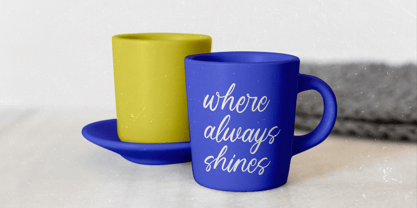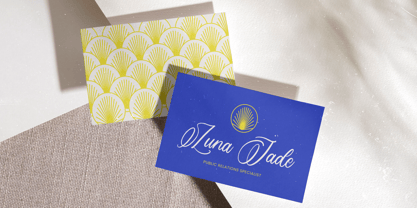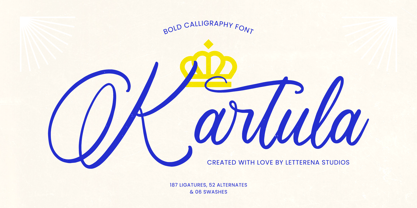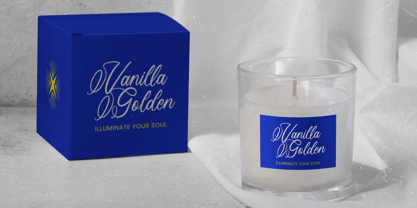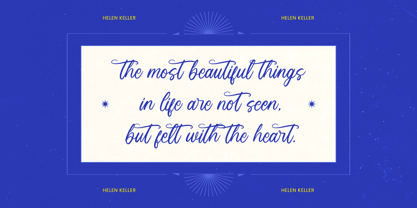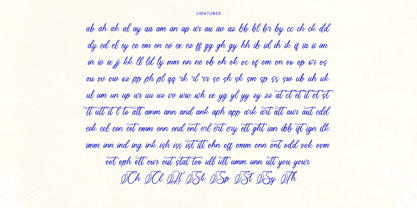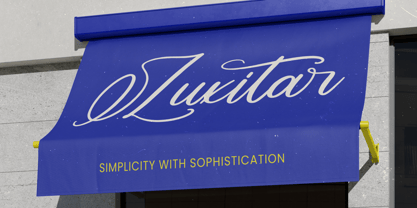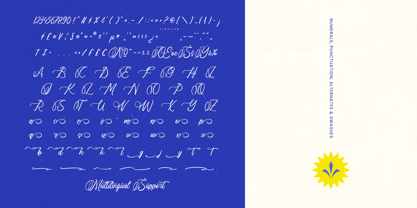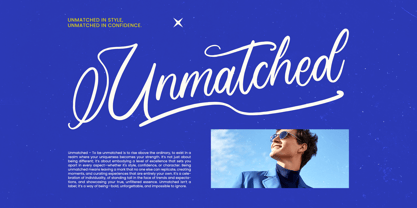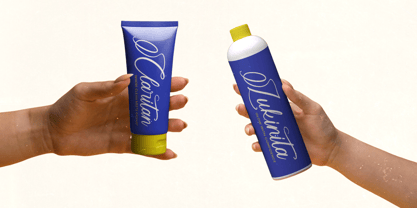
Kartula
by Letterena Studios
The Kartula Font Family was designed by Heru Utama Putra and published by Letterena Studios. Kartula contains 2 styles and family package options. More about this family
Kartula is a bold calligraphy script font designed with strong, confident strokes and smooth flowing curves that deliver a refined and luxurious handwritten character. Featuring large loops, elegant swashes, and carefully balanced proportions, this font creates a premium signature look that feels both expressive and controlled. With 187 ligatures, 52 alternates, and 6 swashes, Kartula offers rich typographic flexibility for crafting distinctive logos, branding, fashion identities, beauty products, packaging, invitations, editorials, and high-end social media visuals. Designed for display use across digital and print media, Kartula is ideal for designers seeking a bold, elegant, and sophisticated script font that communicates exclusivity, confidence, and timeless style.